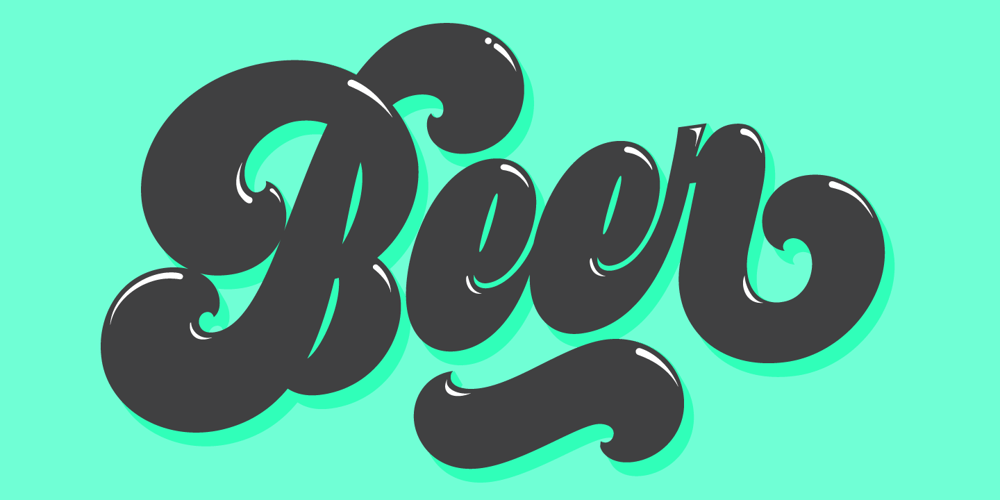
Preta Font Family was designed by Maximiliano R. Sproviero and published by Sproviero Type. Preta contains 6 styles and family package options. Preta, portuguese for a very pure kind of black, has its name very related to its concept: I wanted to make the fattest/darkest script ever. People who follow my work may notice its forms are very related to works of my past (1) but this time the challenge was to be very cautious with the white spaces between letters. Not only I followed some rules and ductus of the copperplate style of calligraphy but also I took a lot of inspiration in posters of the early Art Nouveau (specially in Alfred Roller of the Vienna Secession) where letters forms looked like black squares if not looked from a close distance. With Preta, I wanted to achieve that same idea of “darkness” and thanks to the always welcomed question -what if?- the font grew a lot. The result is a very fat font, that looks delicious. Due to possible customer needs, I designed Preta Small, so it can be used in smaller sizes. Preta Ao Sol (which literally means under the sun!) is a style with those lovely tiny details to give the sensation of bright. Preta Ao Sol Solo was made to be used as a layered font with Preta. Finally, Preta Capitals serves as a company for Preta. Hope you enjoy the font as much as I did when designing it: The fact that it’s full of alternates, swashes, ligatures and swirls makes it really pleasurable at the moment of using it. Give it a try and dance with Preta! TIPS For better results, use Preta with the ‘standard ligatures’ feature activated. NOTES (1) Beatle in 2014. Seventies in 2015.